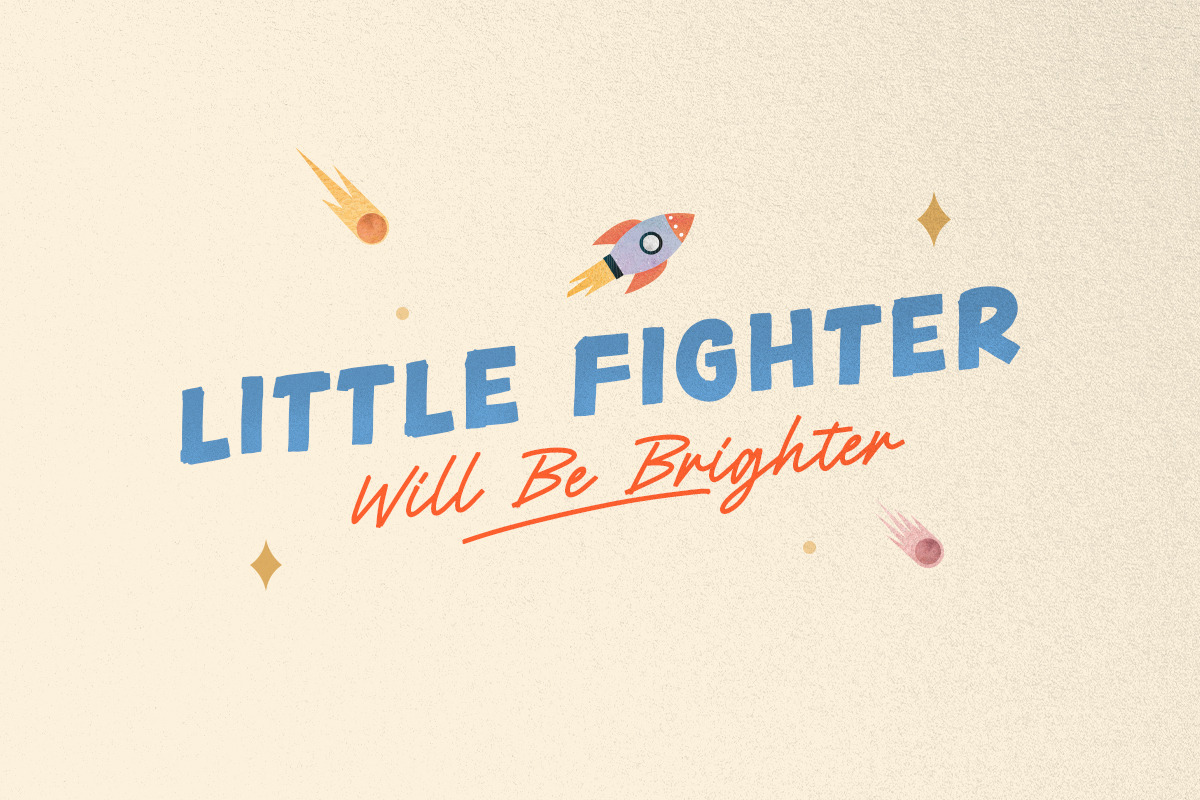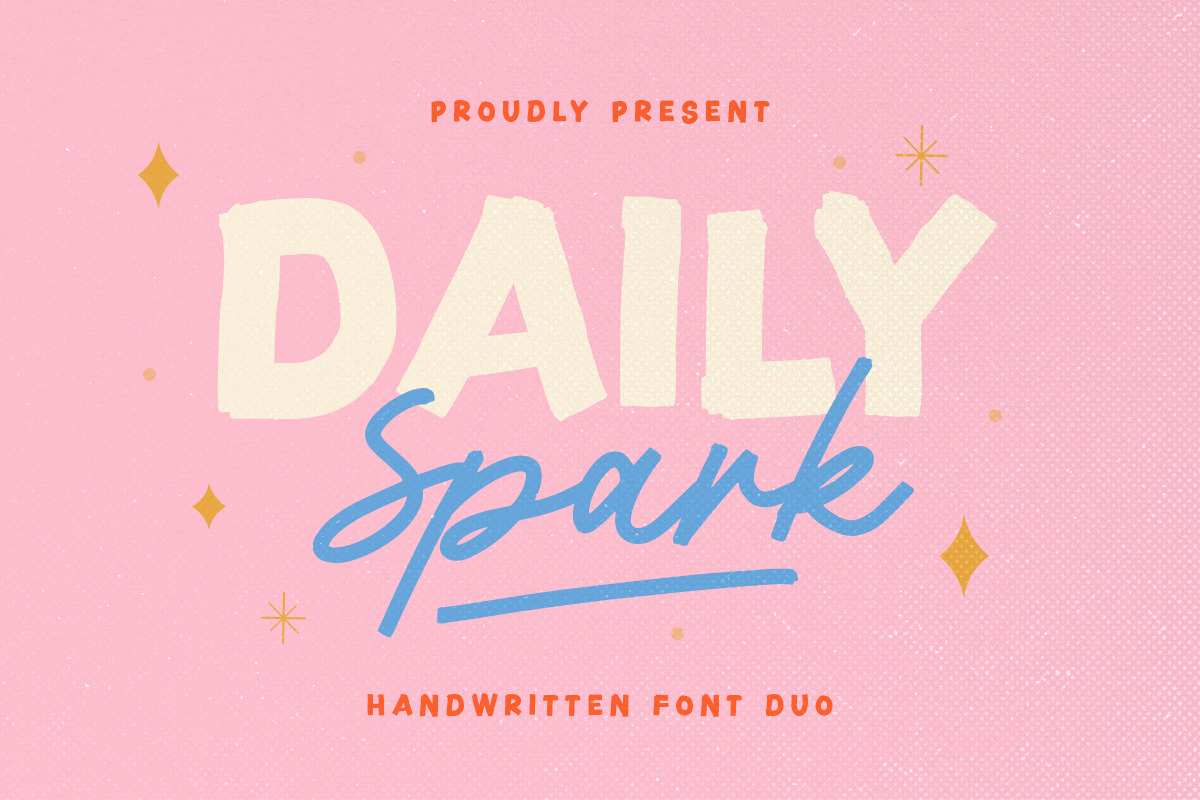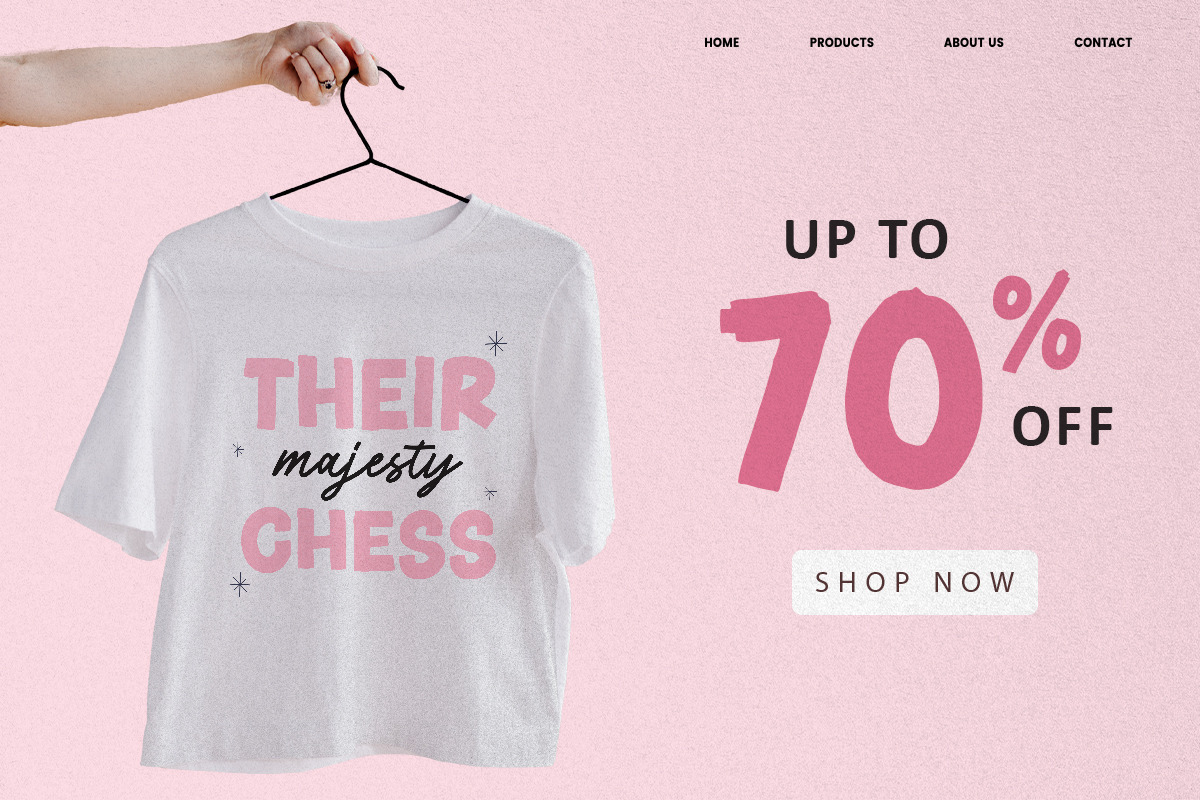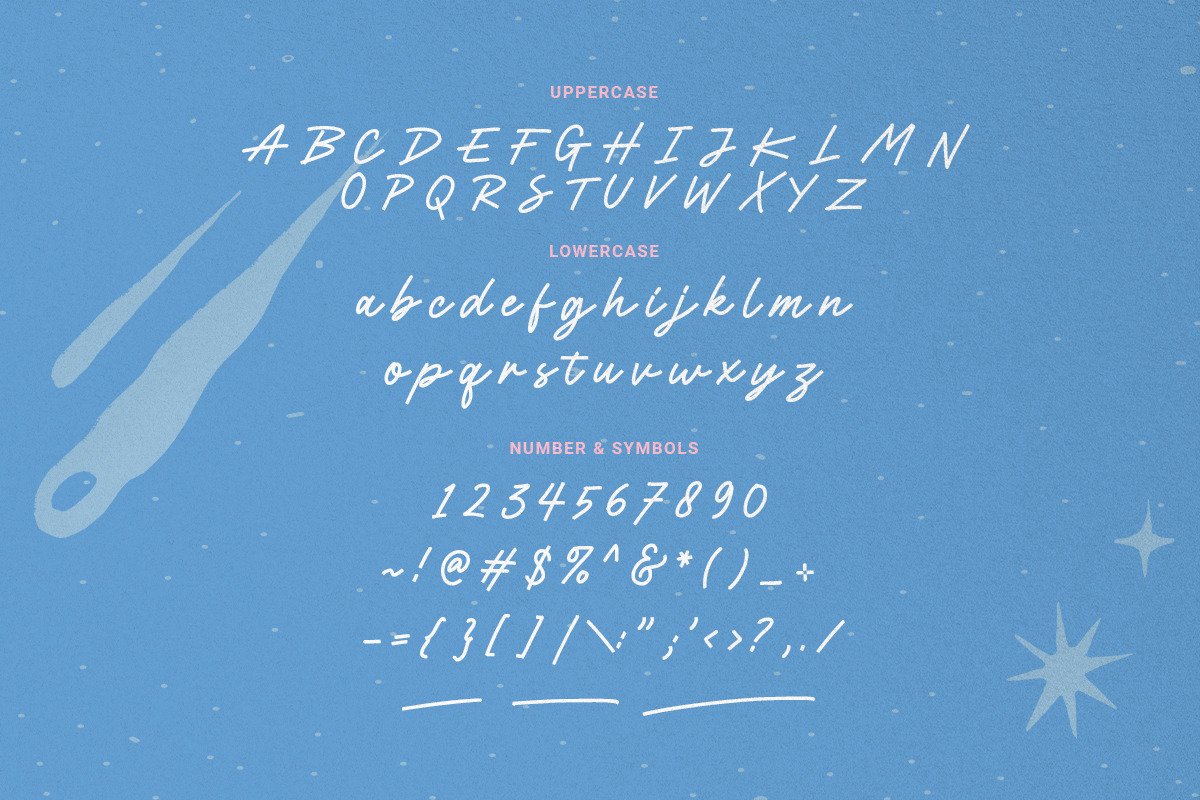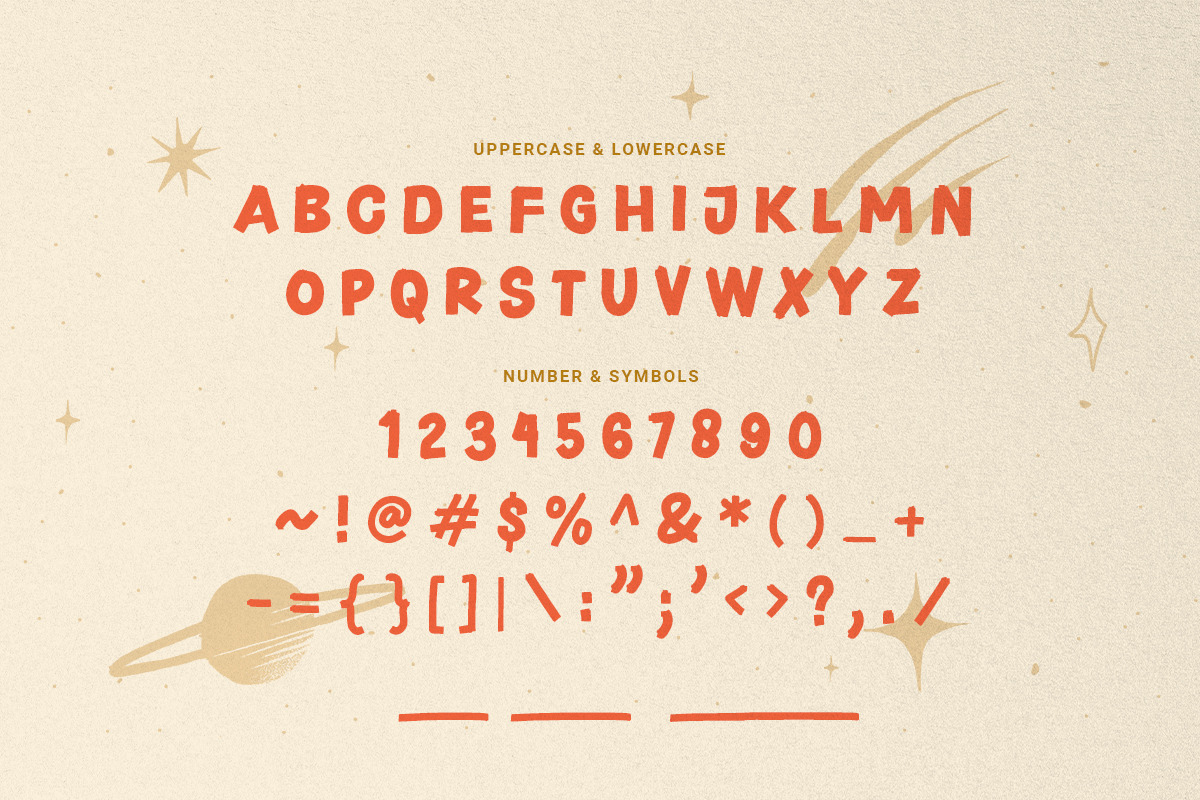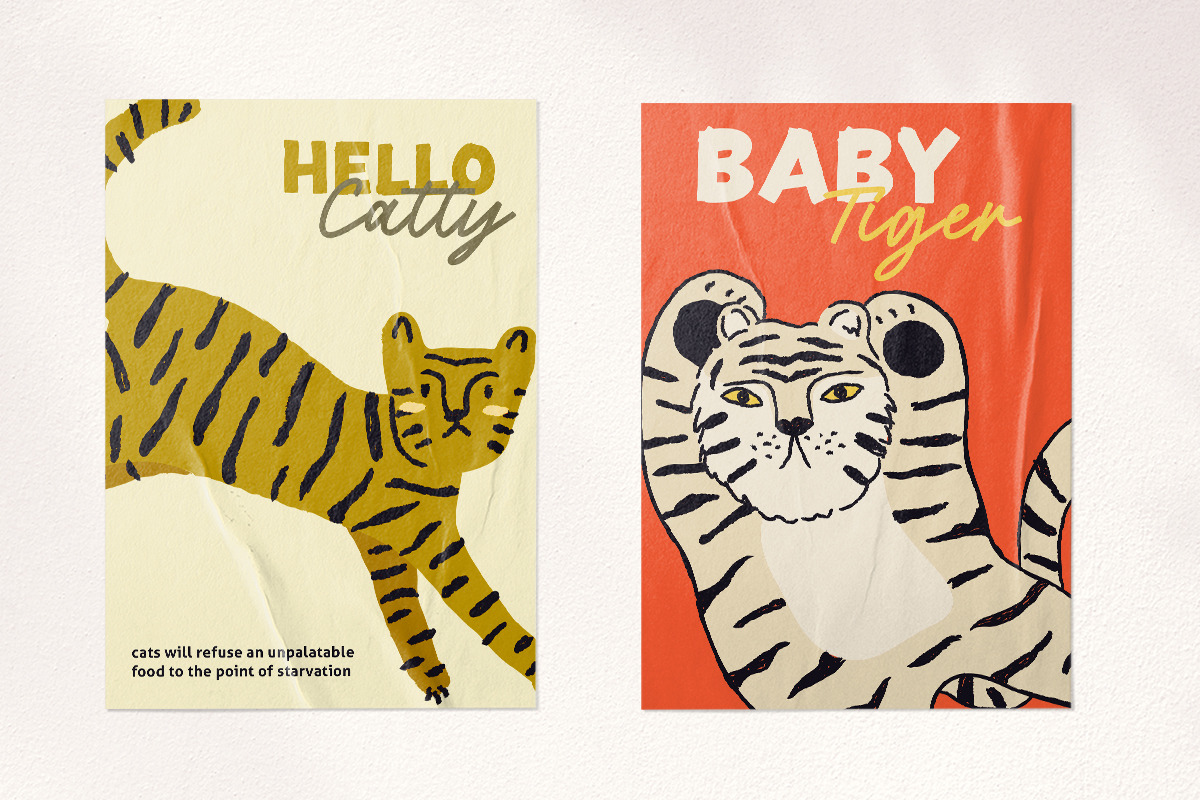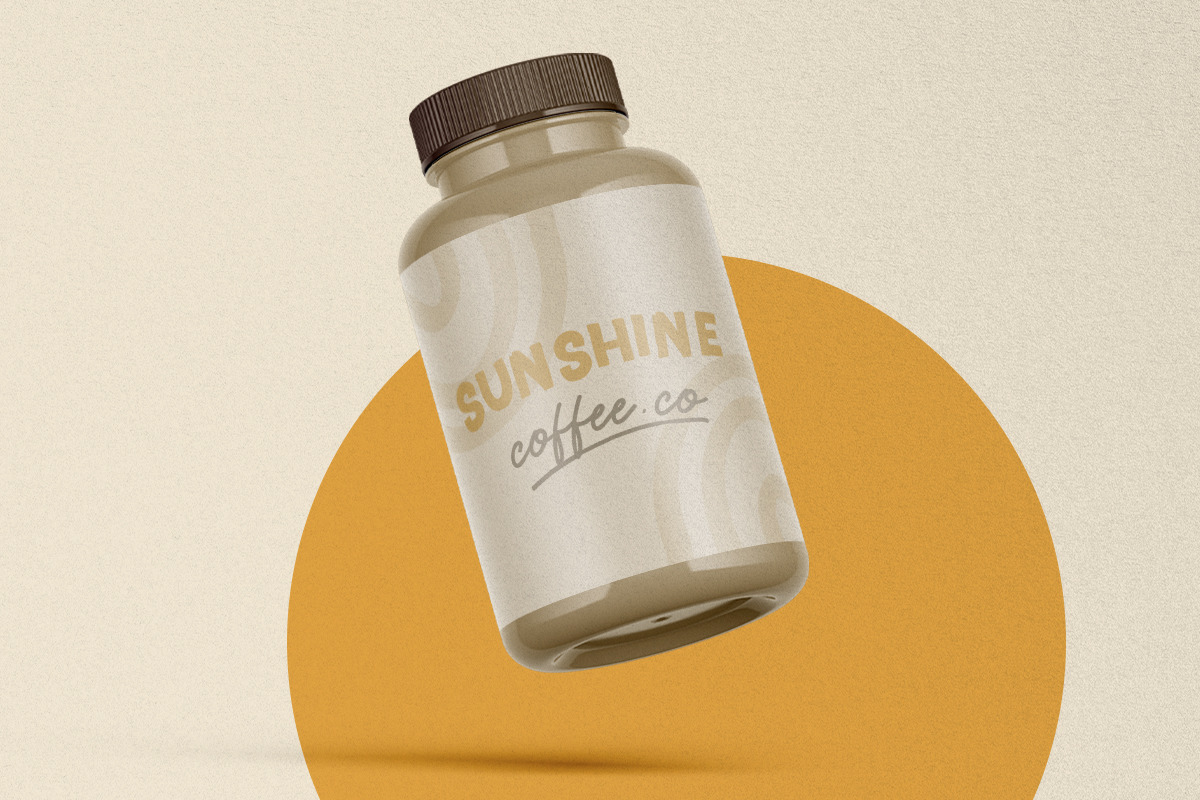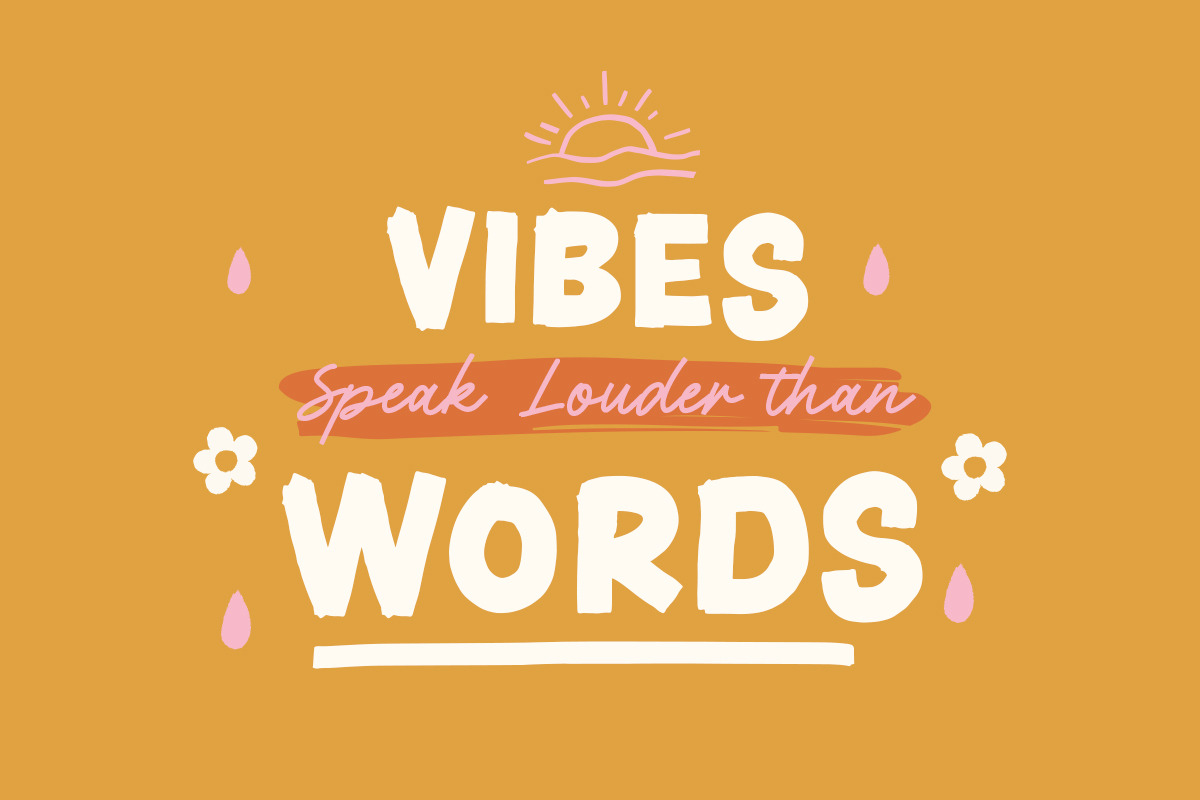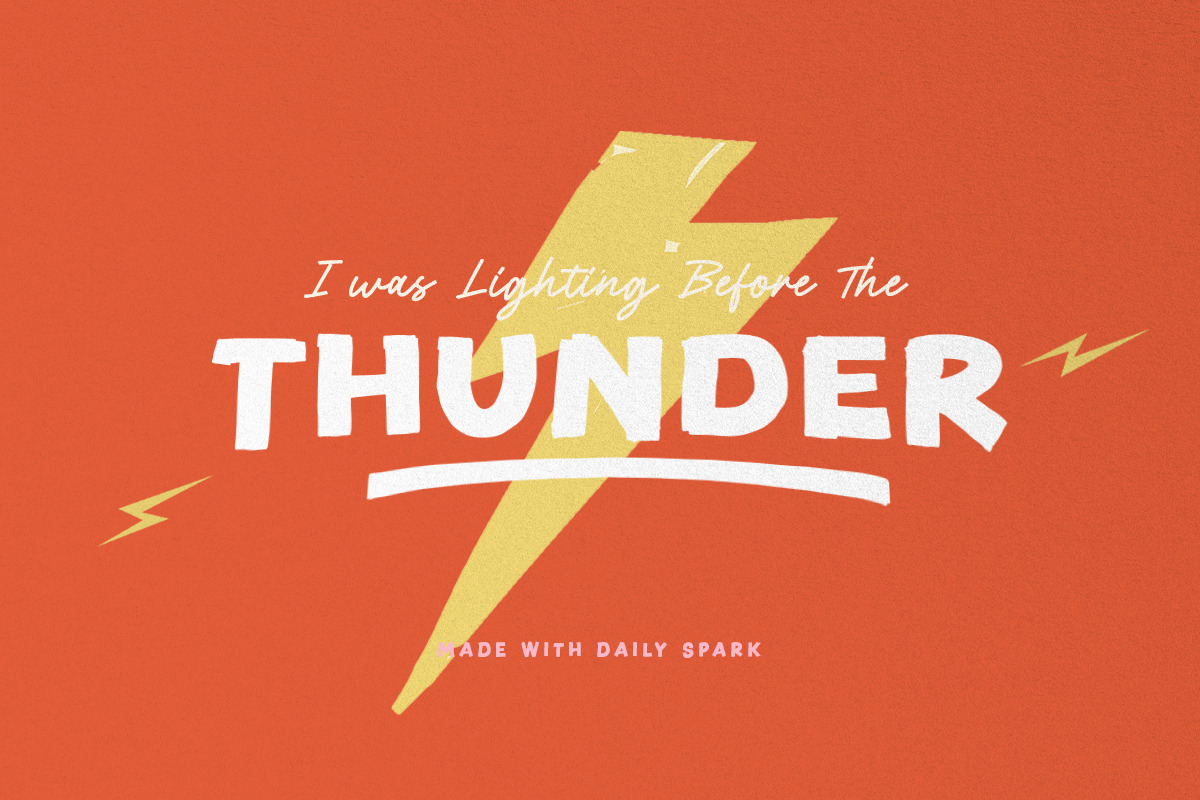
Daily Spark - Handwritten Font Duo
Introducing, Daily Spark, handwritten font duo
Daily Spark is a package of two fonts including Bold Sans and Script that will compliment each other. You can use this font for any occasions such as a branding, merchandise, etc. With handmade feels, this font is suitable for quote. For additional, this font also contains underline that you can access from ligature and type underscore + number (1-3) in the middle of the text, for example : Sp_2ark. This font also support multilingual.